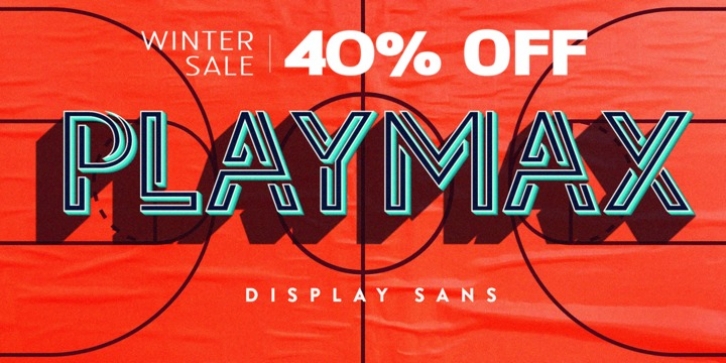
Playmax was designed by Nach Oh! and published by OhType!. Playmax contains 1 style.
It is difficult to classify a typography that is made from different line fragments but precisely that is what makes it stand out from the rest, a construction that took months and multiple corrections that now make up a set of glyphs with is own identity based on the game between blacks and whites, standing out especially in large formats, posters, headlines, logos and titles.
Playmax is a typeface with which you can find endless forms of customization, from its basic structure to the number of effects it supports.